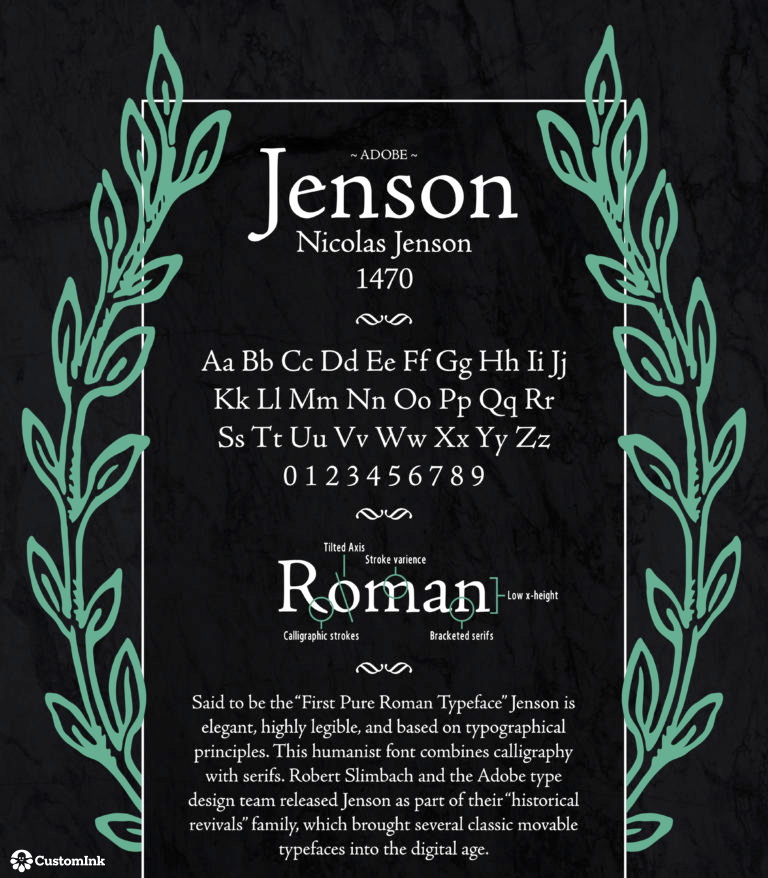
Font of the Week — Jenson
Perhaps one of the oldest fonts, Jenson is said to be the “first pure Roman Typeface”. It was originally created by Nicolas Jenson in 1470, but was given a revival by Ernst Detterer in 1923. Adobe Jenson, the font we’ve come to know and love, was born again in 1996 at the hands of Robert Slimbach. Jenson is known for it’s versatility, as it is looks great at any size!